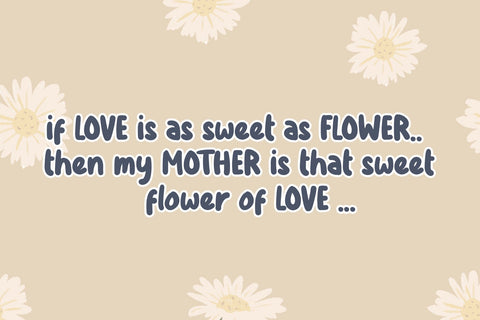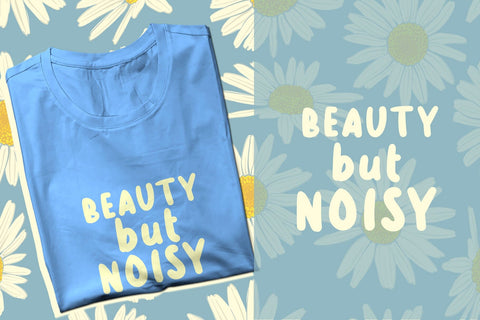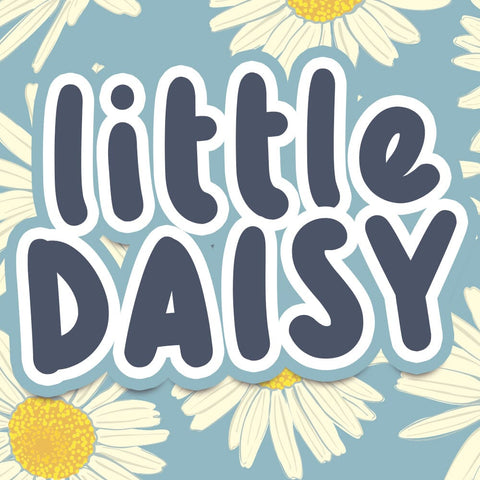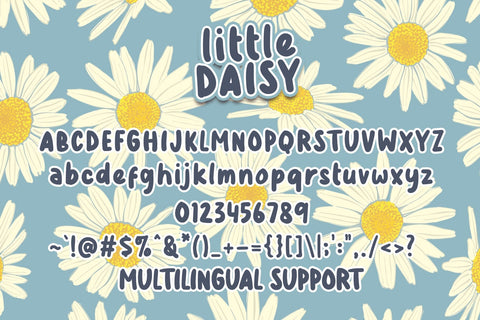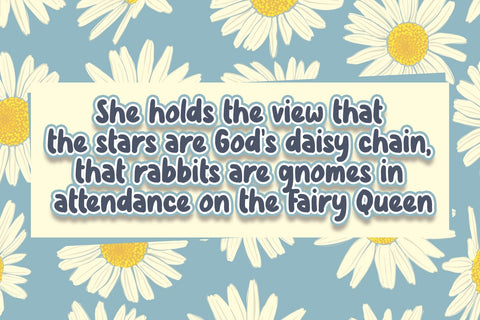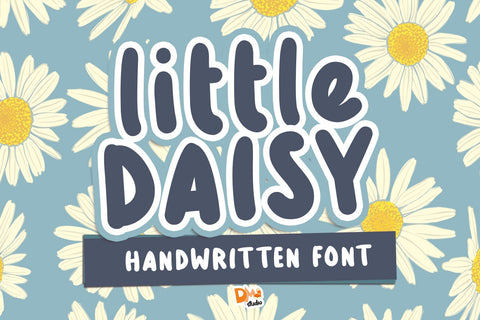
Little Daisy Font
Little Daisy Font is a charming and versatile typeface designed to bring a touch of whimsy to your creative projects. With its delicate strokes and playful letterforms, this font is perfect for crafting beautiful invitations, greeting cards, logos, and more.
- Delicate and Playful Design: The Little Daisy Font features a delightful and whimsical design, making it ideal for projects that require a touch of charm and playfulness.
- Versatility for Various Projects: Use this font for a wide range of projects, from invitations and stationery to logos and branding. Its adaptability makes it suitable for both digital and print applications.
- Invitations and Stationery: Create enchanting invitations and stationery with the Little Daisy Font, adding a touch of whimsical elegance to your special events.
- Greeting Cards: Design heartwarming greeting cards with this font, making your messages even more delightful and personal.
- Logo and Branding: Craft unique logos and branding elements that stand out with the playful and distinctive style of the Little Daisy Font.
- Digital and Print Designs: Whether you're designing for online platforms or print materials, the Little Daisy Font ensures a consistent and charming look.
Unleash the charm of the Little Daisy Font in your designs, and let its playful elegance elevate your creative projects.